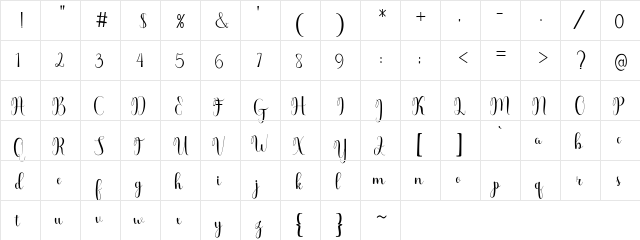
Beauty maheyrah Free Regular
Design Context for Beauty maheyrah Free Typeface
Beauty maheyrah Free is a composed and adaptable typeface that performs quietly and consistently across a wide range of design contexts.